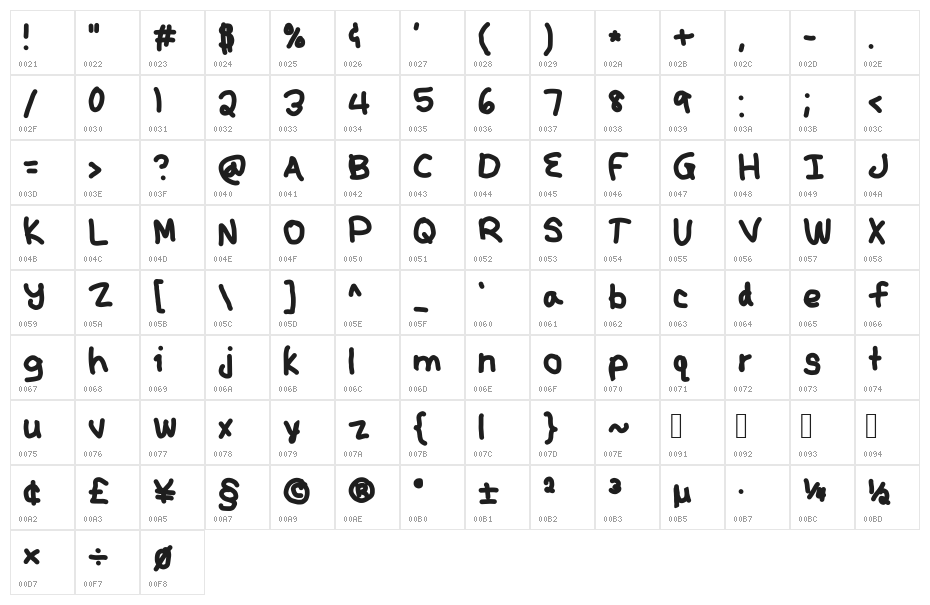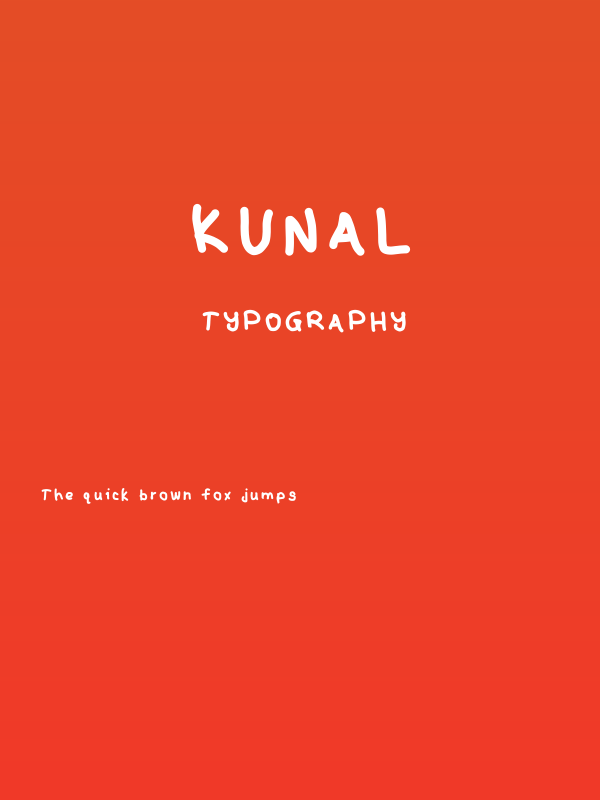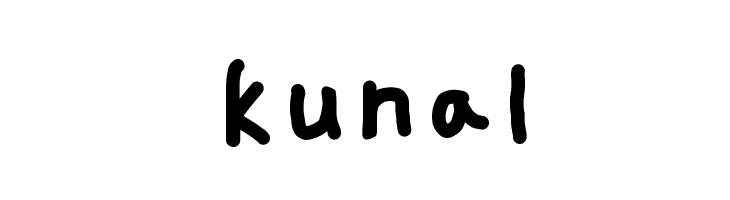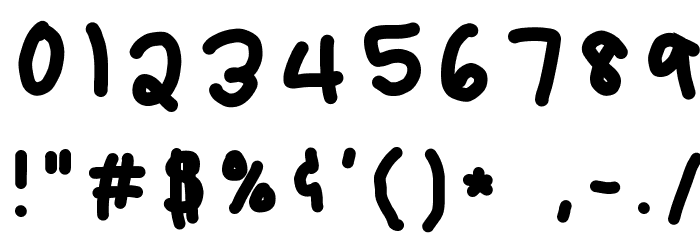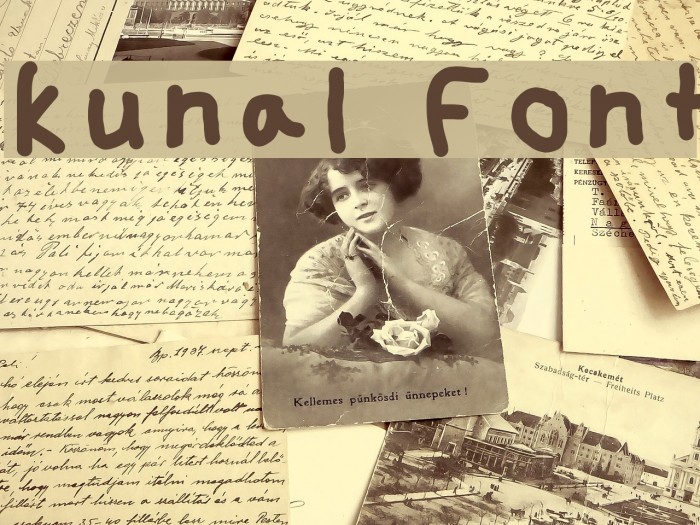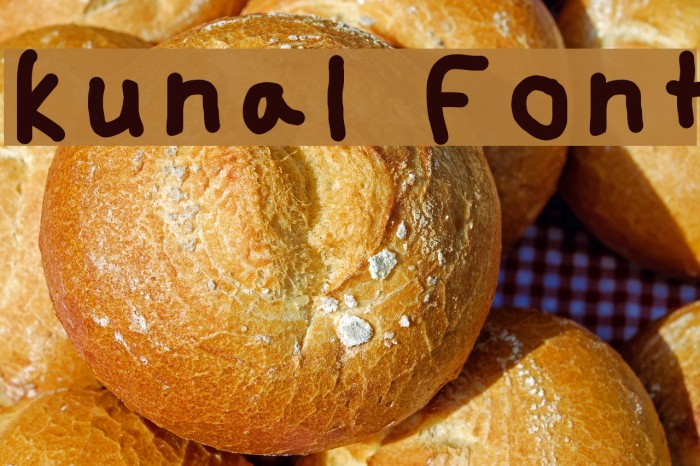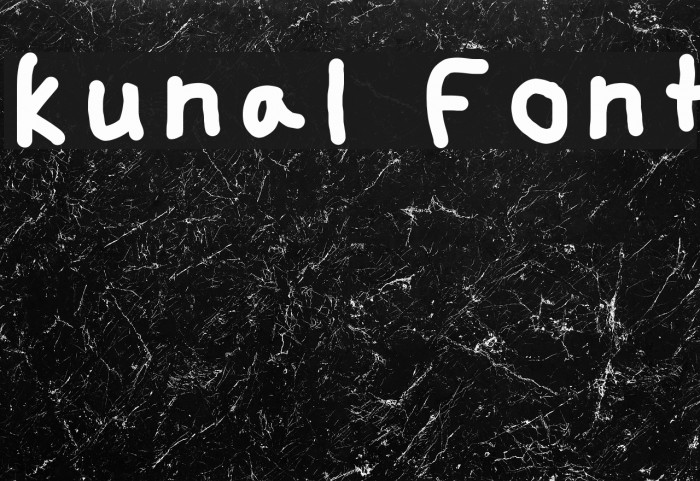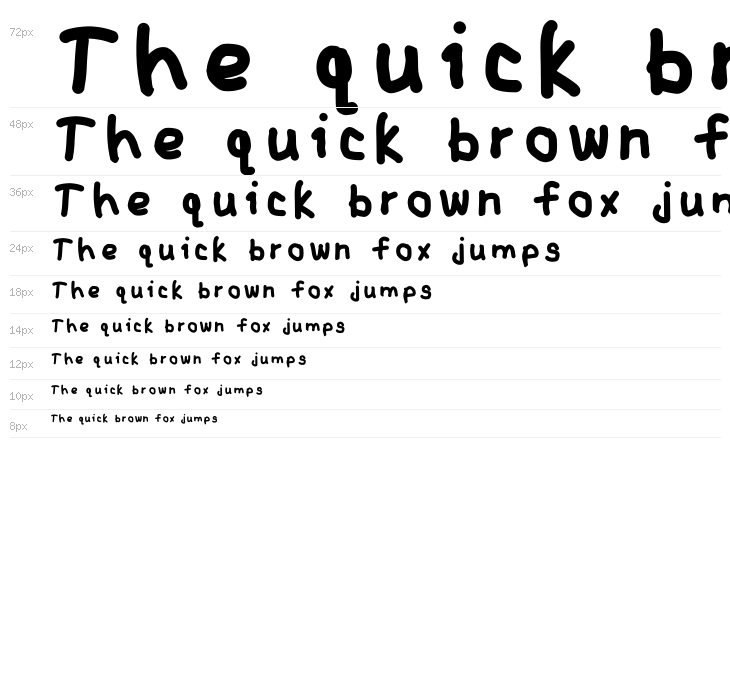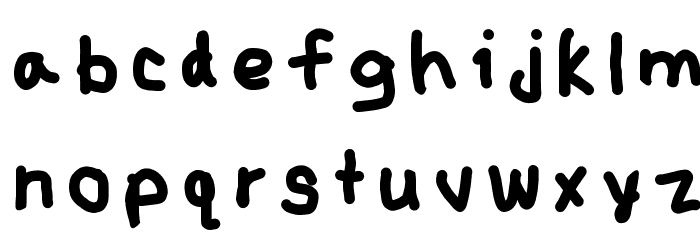
kunal Font
kunal Description
This playful and informal font features a handwritten style with a casual, friendly appearance. The characters are slightly irregular, adding a human touch and a sense of spontaneity. The strokes are bold and rounded, giving the font a soft and approachable feel. The uppercase and lowercase letters maintain a consistent style, with a slight tilt that enhances the handwritten effect. The numbers and special characters are equally expressive, fitting seamlessly with the overall design. This font is perfect for projects that require a personal, informal touch, such as greeting cards, children's books, or casual branding.
| Overall Style | Casual, Playful |
| Use Case | Logos, Headlines, Informal Text |
| Proposed Projects | Ideal for greeting cards, children's books, casual branding, and informal invitations. |